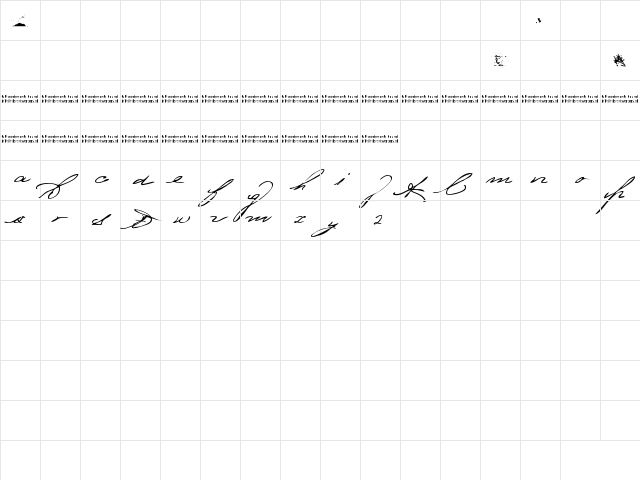
Complete bedtime stories Regular glyph index. Displaying only characters natively supported by bedtime stories Regular font.
bedtime stories is a composed and adaptable typeface that performs quietly and consistently across a wide range of design contexts.